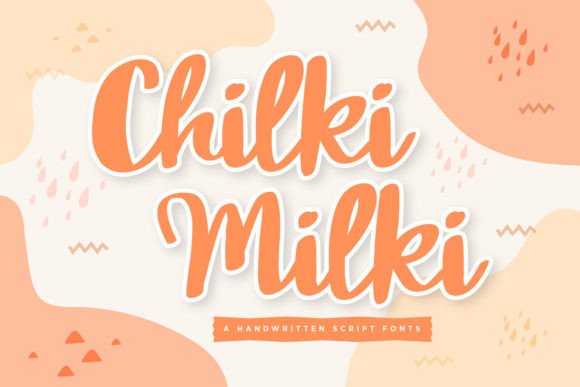
Welcome to the realm of Chilki Milki, a modern, handwritten script font that is imbued with the essence of elegance and charm. Immerse yourself in the world of beauty as Chilki Milki takes you by the hand and leads you into a realm where creativity and sophistication reign supreme.
With its graceful strokes and delicate curves, Chilki Milki embodies the essence of femininity and finesse. Its every line dances upon the page, conveying a sense of whimsy and wonder that is sure to captivate your audience. Let your words take on a life of their own, adorned with the allure of Chilki Milki.
Step into the world of beauty, where Chilki Milki becomes your faithful companion, transforming your projects into exquisite masterpieces. Whether you are designing a logo that exudes charm and sophistication or crafting promotional ads that spark desire, Chilki Milki will elevate your vision and leave a lasting impression.
With Chilki Milki, you'll discover a font that seamlessly blends the allure of the handwritten word with the precision of digital craftsmanship. Its versatility knows no bounds, lending itself effortlessly to a symphony of creative endeavors. Whether you're crafting social media posts that demand attention or designing merchandise that resonates with customers, Chilki Milki will effortlessly enhance your work.
As you embark on your creative journey, Chilki Milki will be your trusted guide, leading you through the labyrinth of ideas and transforming them into tangible works of art. Its intuitive design and seamless flow will ignite your imagination, propelling you to new heights of innovation and creativity.
Chilki Milki beckons you to embrace the beauty of the handwritten word, to infuse your work with a touch of elegance and a sprinkle of enchantment. With its captivating charm and endless possibilities, Chilki Milki will elevate your projects to new realms of creativity and leave a lasting impression on your audience.